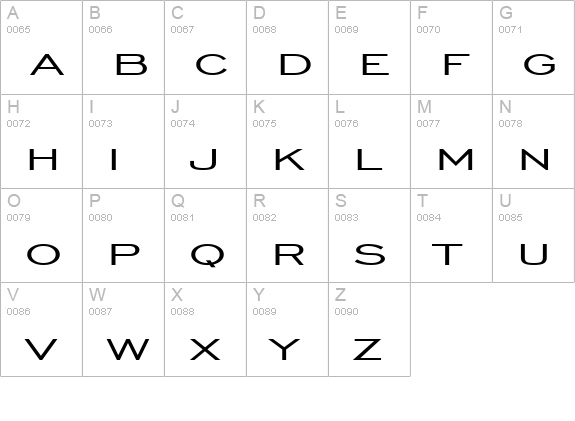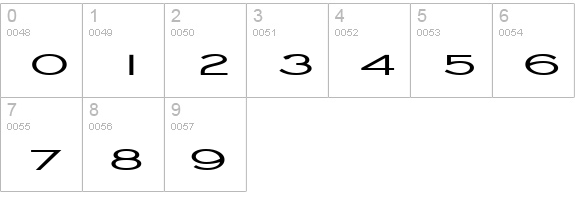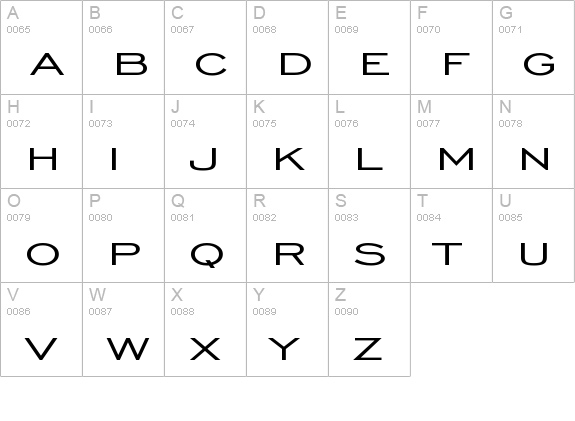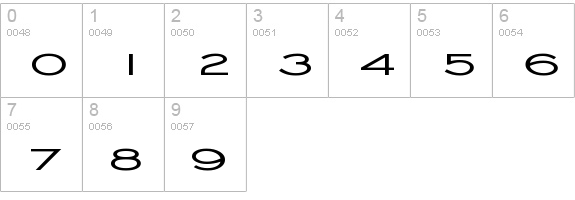
Chisel Extended Normal is the standard, neutral, extended-width variant in the Chisel typeface family \xE2\x80\x94 well suited to general body text, paragraphs, and standard typographic work.
Chisel Extended Normal font is an elegant and versatile typeface that combines classic elements with a modern twist. Its sharp, chiseled edges give it a bold and impactful appearance, making it ideal for a wide range of design projects. The extended character set allows for creative typography and design possibilities. This font is perfect for creating eye-catching headlines, logos, posters, and more. Whether you're designing for print or digital media, Chisel Extended Normal font will make your text stand out. Best of all, Chisel Extended Normal font is available for free download at FontsMarket.com. Don't miss out on the opportunity to add this stylish and unique font to your collection today!